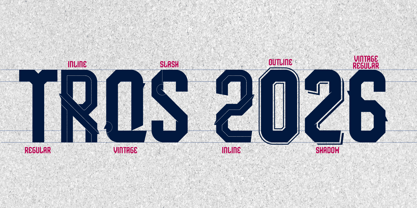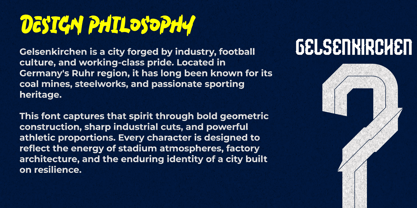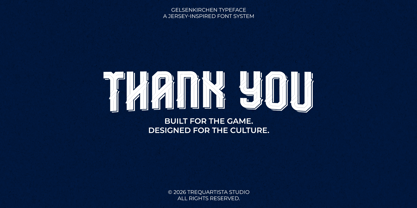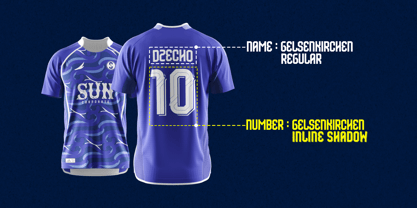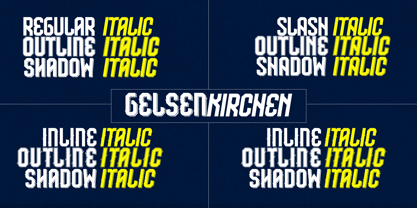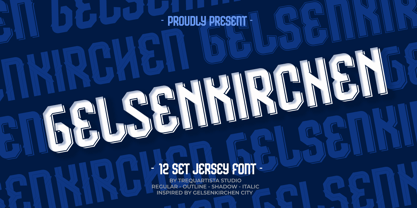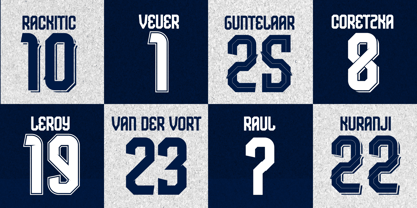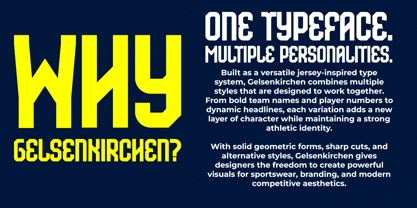
Gelsenkirchen
von Trequartista Studio
Die Schriftfamilie Gelsenkirchen wurde von Muhammad Afif Ersya entworfen und von Trequartista Studio veröffentlicht. Gelsenkirchen enthält 24 Stile und Familienpaketoptionen. Mehr über diese Familie
Gelsenkirchen is a bold jersey-inspired typeface built with a strong athletic character and industrial influence.
Designed with powerful geometric forms, sharp cuts, and dynamic details, this font brings the energy of sports culture into modern typography.
Featuring multiple styles including Inline, Slash, and Vintage variations, Gelsenkirchen allows designers to create flexible combinations for jerseys, sports branding, posters, logos, streetwear, and display projects.
A complete type system made for bold statements.